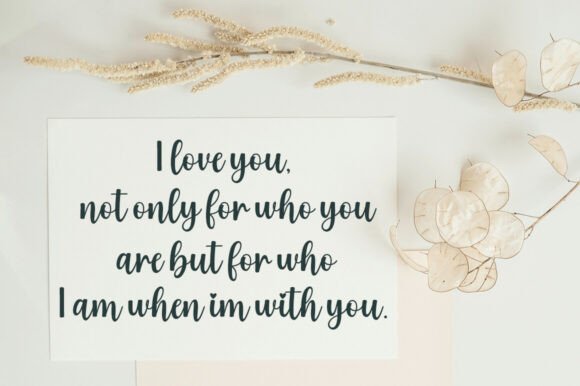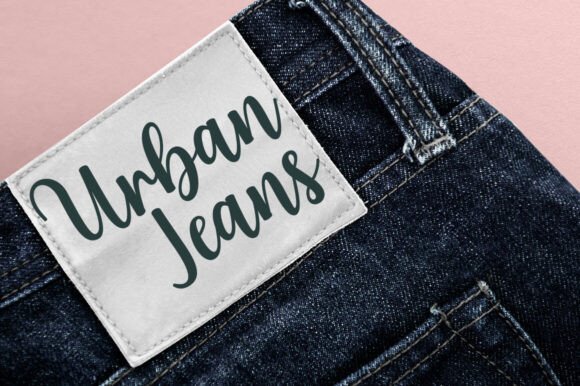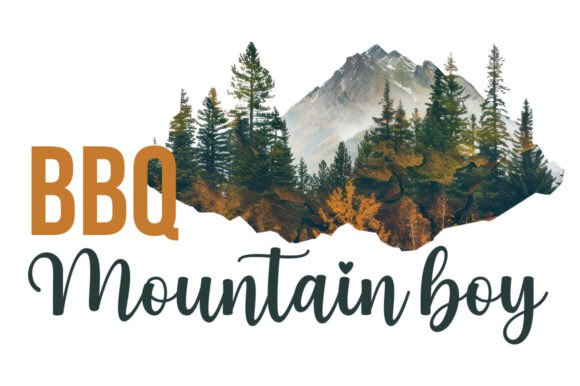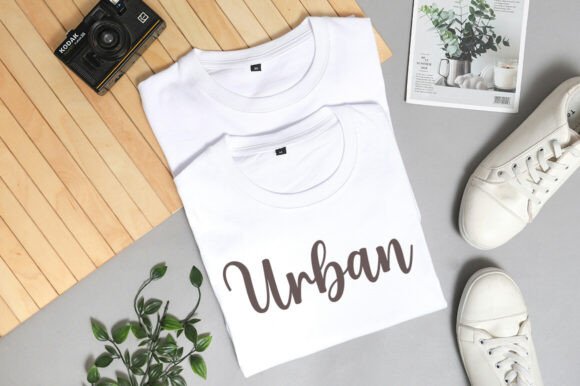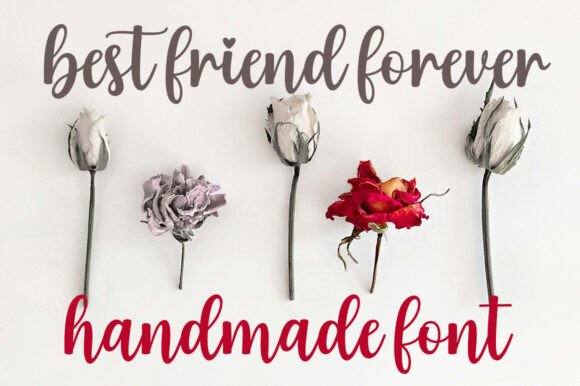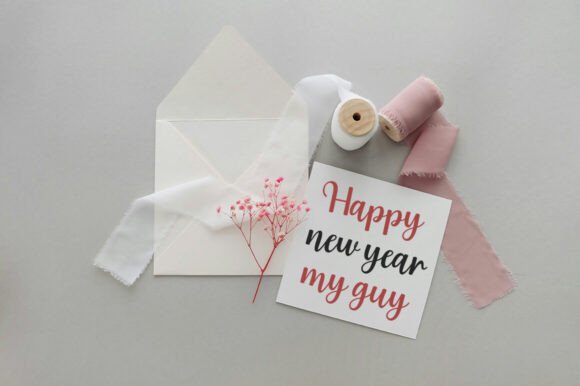
Introducing Healthy Fruits Font: Elevate Your Designs with Fresh Elegance
Are you tired of using the same old fonts in your designs? Look no further than the Healthy Fruits Script Font, a modern script font that brings a fresh and dynamic appeal to your creative projects. With its unconventional baseline and classy yet casual elegance, this font is perfect for designers and crafters looking to make a magnificent impression.
A Font that Exudes Elegance and Sophistication
The Healthy Fruits Script Font boasts a distinctly feminine style that is sure to capture the attention of your audience. Its elegant and refined appearance makes it ideal for a variety of designs, including wedding invitations, thank-you notes, logos, business cards, and more. Whether you’re a designer, crafter, or DIY enthusiast, this font is sure to become a staple in your design toolkit.
Unleash Your Creativity with Healthy Fruits Script Font
One of the standout features of the Healthy Fruits Script Font is its ability to come alive when executed in ink or watercolors. The font’s unique style and flair make it perfect for designs that require a personal touch. With the initial and terminal letters, alternate options, and all-embracing language support, you’ll have endless opportunities to enhance your creativity and bring your designs to life.
Key Features of Healthy Fruits Script Font
• Unconventional Baseline: The Healthy Fruits Script Font features a unique baseline that sets it apart from other script fonts.
• Classy yet Casual Elegance: This font exudes a sense of sophistication and refinement, making it perfect for a variety of designs.
• Distinctly Feminine Style: The Healthy Fruits Script Font boasts a feminine style that is sure to appeal to designers and crafters looking for a font with a touch of elegance.
• Initial and Terminal Letters: The font features initial and terminal letters that allow you to add a personal touch to your designs.
• Alternate Options: With alternate options, you can mix and match letters to create a unique look that reflects your style.
• All-Embracing Language Support: The Healthy Fruits Script Font supports a wide range of languages, making it perfect for designers and crafters working on international projects.
Perfect for a Variety of Designs
The Healthy Fruits Script Font is versatile and can be used in a variety of designs, including:
• Wedding Invitations: Add a touch of elegance to your wedding invitations with this beautiful script font.
• Thank-You Notes: Make your thank-you notes stand out with the Healthy Fruits Script Font.
• Logos: Use this font to create a unique and memorable logo for your business or brand.
• Business Cards: Add a touch of sophistication to your business cards with this elegant script font.
Why Choose Healthy Fruits Script Font?
With so many fonts available, why choose the Healthy Fruits Script Font? Here are just a few reasons:
• Unique Style: This font boasts a unique style that sets it apart from other script fonts.
• Elegant and Refined: The Healthy Fruits Script Font exudes elegance and sophistication, making it perfect for designs that require a touch of refinement.
• Versatile: This font can be used in a variety of designs, from wedding invitations to logos and business cards.
• Easy to Use: The Healthy Fruits Script Font is easy to use and comes with a range of features that make it easy to customize.
Font Name Healthy Fruits Font
If you’re looking for a font that will elevate your designs and add a touch of elegance and sophistication, look no further than the Healthy Fruits Script Font. With its unique style, elegant appearance, and versatility, this font is sure to become a staple in your design toolkit. Whether you’re a designer, crafter, or DIY enthusiast, the Healthy Fruits Script Font is the perfect choice for anyone looking to create beautiful and memorable designs.